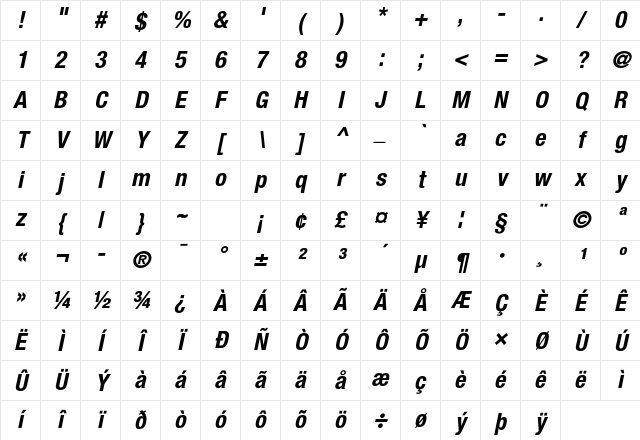
Helvetica Neue LT Pro 77 Bold Condensed Oblique
Style: 77 Bold Condensed Oblique
Foundry: Linotype Library GmbH
Designer: Linotype Library GmbH
Helvetica Neue LT Pro Family
Complete Helvetica Neue LT Pro 77 Bold Condensed Oblique glyph index. Displaying only characters natively supported by Helvetica Neue LT Pro 77 Bold Condensed Oblique font.
Design Context for Helvetica Neue LT Pro
Helvetica Neue LT Pro is a composed and adaptable typeface that performs quietly and consistently across a wide range of design contexts. The slanted form adds forward momentum and visual energy. Its bold stroke weight gives it real presence on the page. Its narrow stance lets it pack a punch even in space-constrained designs.
Pro Tip: Use Helvetica Neue LT Pro for emphasis, pull quotes, and subheadings where its slanted energy can add rhythm to the layout.